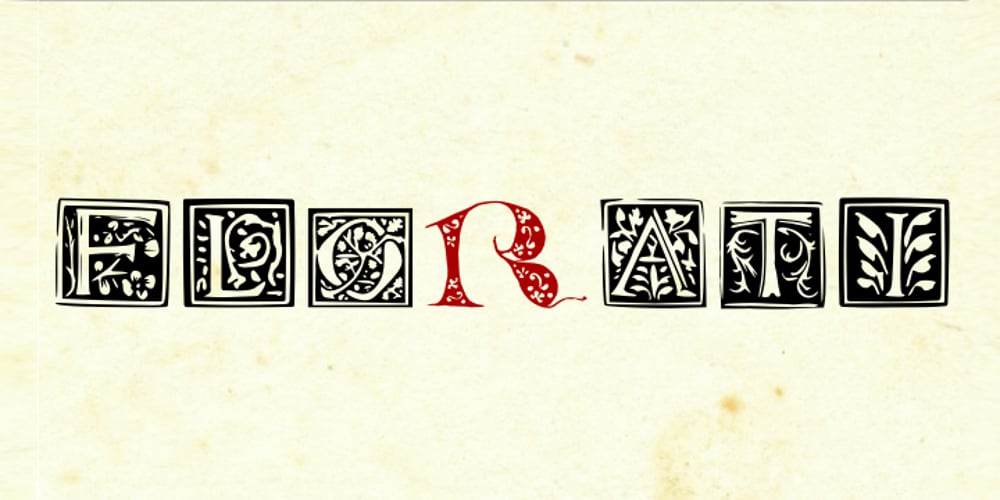
Florati
Florati font
Florati Font Family was designed by Shane Brandes and published by Proportional Lime. Florati contains 1 styles and family package options. Can you imagine the delight that the printers of the Incunabula era would have had if they had such a tool as this font with a hundred and fifty glyphs of decorative capitals. The printers of that era were lucky to have more than a handful such delights. These Decorated initials and drop caps are all based on early period exemplars, dating to prior to 1525, from a wide range of printers such as Thomas de Blavis to Günther Zainer. Every Proportional Lime Font comes equipped with a complete character map.